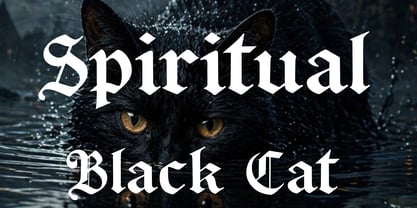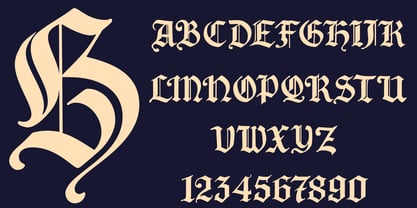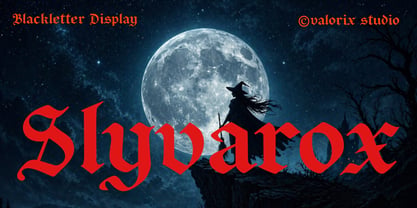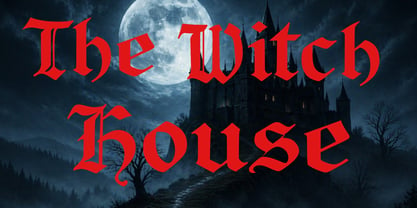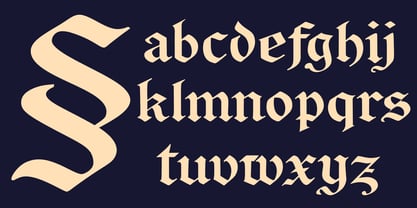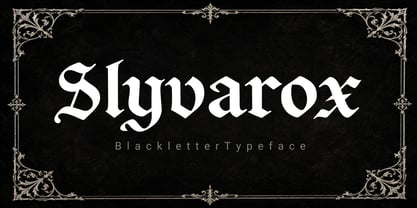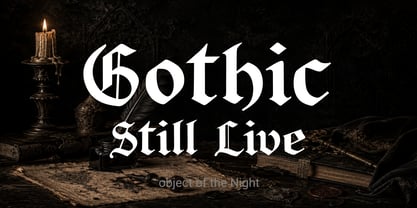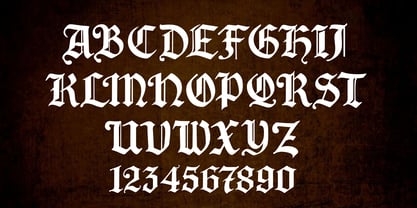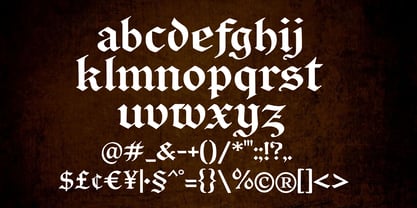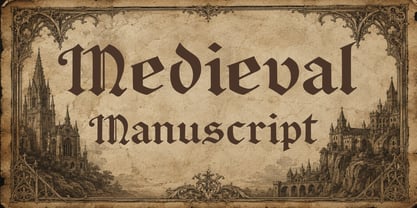
Slyvarox
by Valorix Studio
The Slyvarox Font Family was designed by Erick Rismawan Valorix and published by Valorix Studio. Slyvarox contains 1 styles. More about this family
Slyvarox is a bold blackletter display typeface forged with medieval spirit and dark fantasy aesthetics. Inspired by gothic manuscripts, occult symbolism, and old-world heraldry, it blends traditional blackletter structure with a dramatic contemporary edge. Its sharp strokes, commanding rhythm, and ornamental character make Slyvarox ideal for album covers, branding, book titles, game interfaces, tattoo-inspired designs, posters, apparel, and any project demanding a powerful gothic presence. Whether evoking ancient kingdoms, witchcraft legends, or dark romantic atmospheres, Slyvarox delivers a spellbinding visual voice with unmistakable character. Perfect for: Gothic & fantasy branding Metal and dark music artwork Medieval themed projects Book covers & editorial headlines Tattoo, apparel & merchandise Posters, logos & dramatic display typography Slyvarox is not merely a blackletter font, it is a typographic incantation.